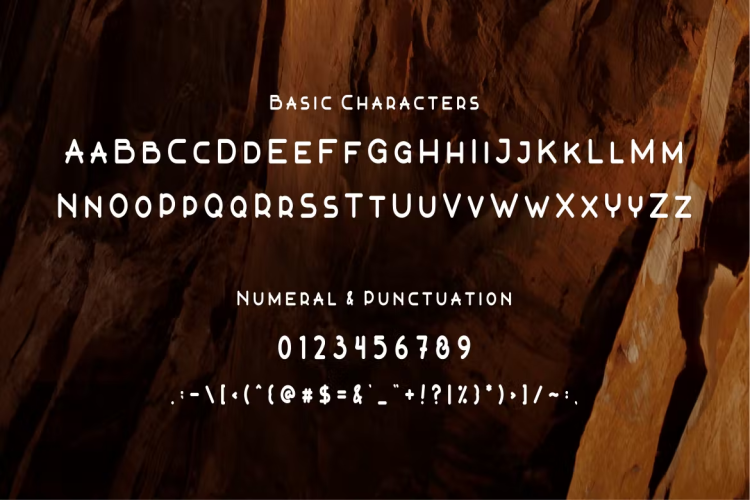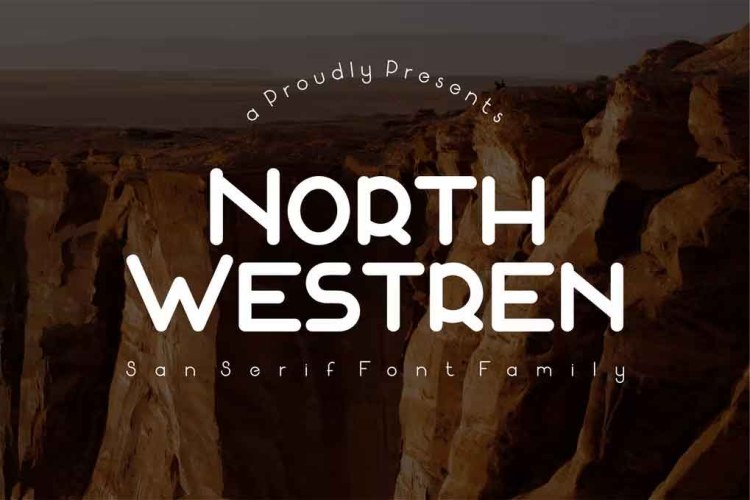
North Westren Font
North Westren Font It has a elegant, classy look and modern. It’s a great font for fashion, apparel projects, signature, album cover, logo, branding, magazine, social me…
North Westren Font It has a elegant, classy look and modern. It’s a great font for fashion, apparel projects, signature, album cover, logo, branding, magazine, social media, & advertisements, but also works great for other projects.
Where North Westren Font works best
North Westren Font keeps its shape at 14 and 16 pixels, which is where interface text actually lives. Numbers and capitals stay distinguishable in tables.
Presentations are read at a distance; a clean sans with a strong bold is the safest hierarchy you can build in a hurry.
Simple letterforms survive angles, glare and movement, so North Westren Font suits door signs, menus boards and exhibition panels.
What kind of work does North Westren Font suit?
It sits in the Sans Serif Fonts group and reads as branding, elegant, modern, music. That makes it a candidate wherever those qualities help: headings, packaging, social graphics and brand work. Set it at the size you plan to use before deciding.